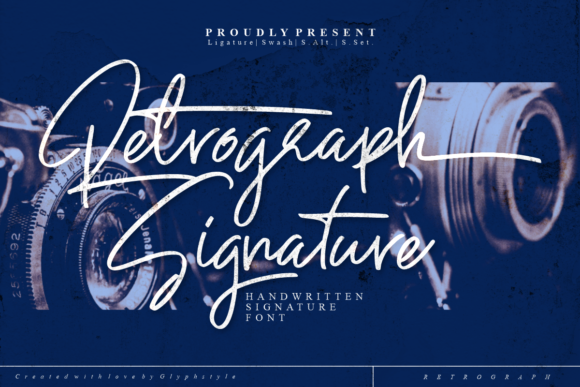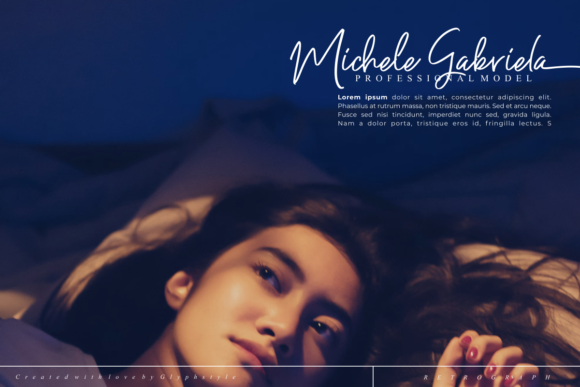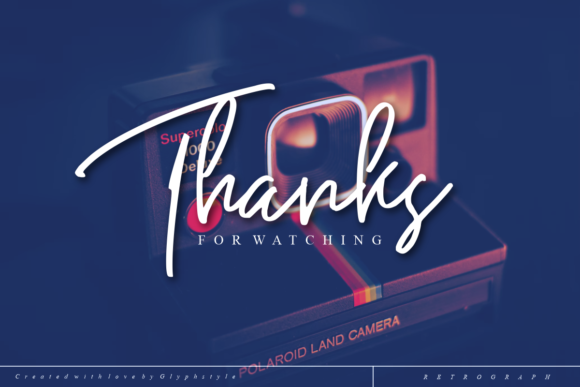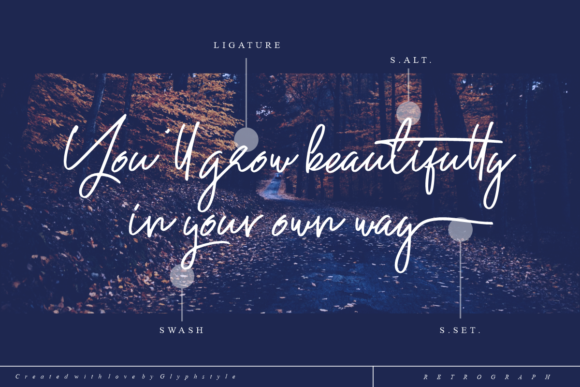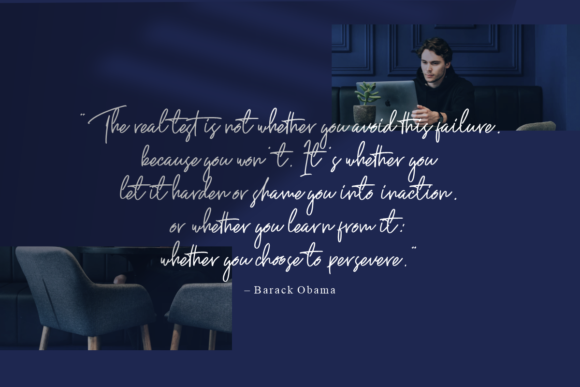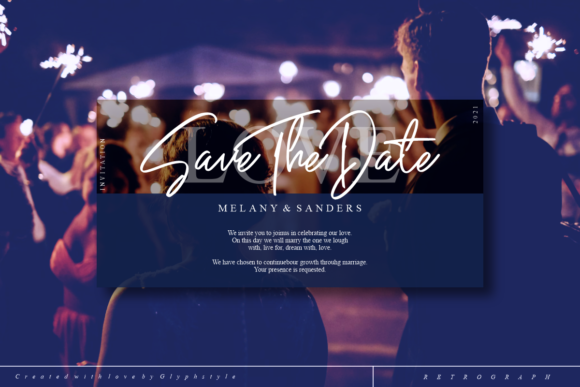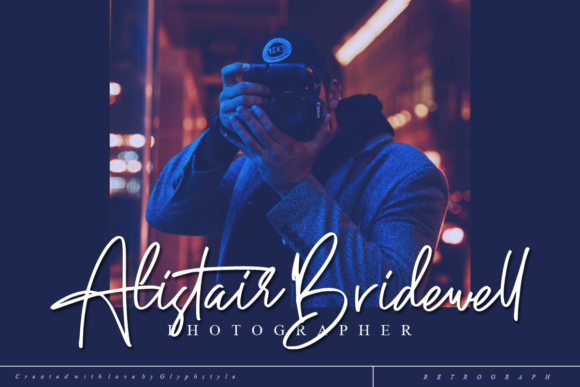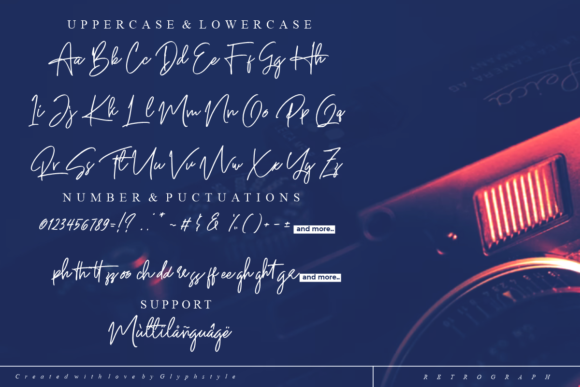
About Retrograph Signature Font
Retrograph Signature is a beautiful and stylish script font. It has a classy, elegant and modern look that can be used for all of your designs! This font is PUA encoded which means you can access all glyphs and swashes with ease!